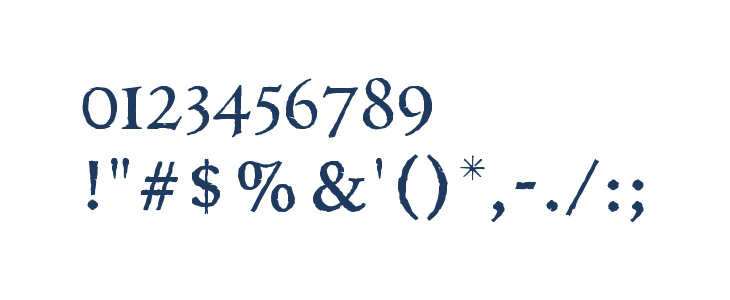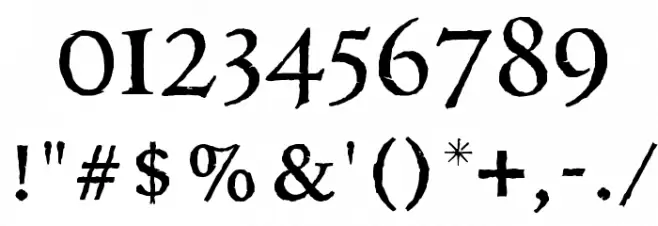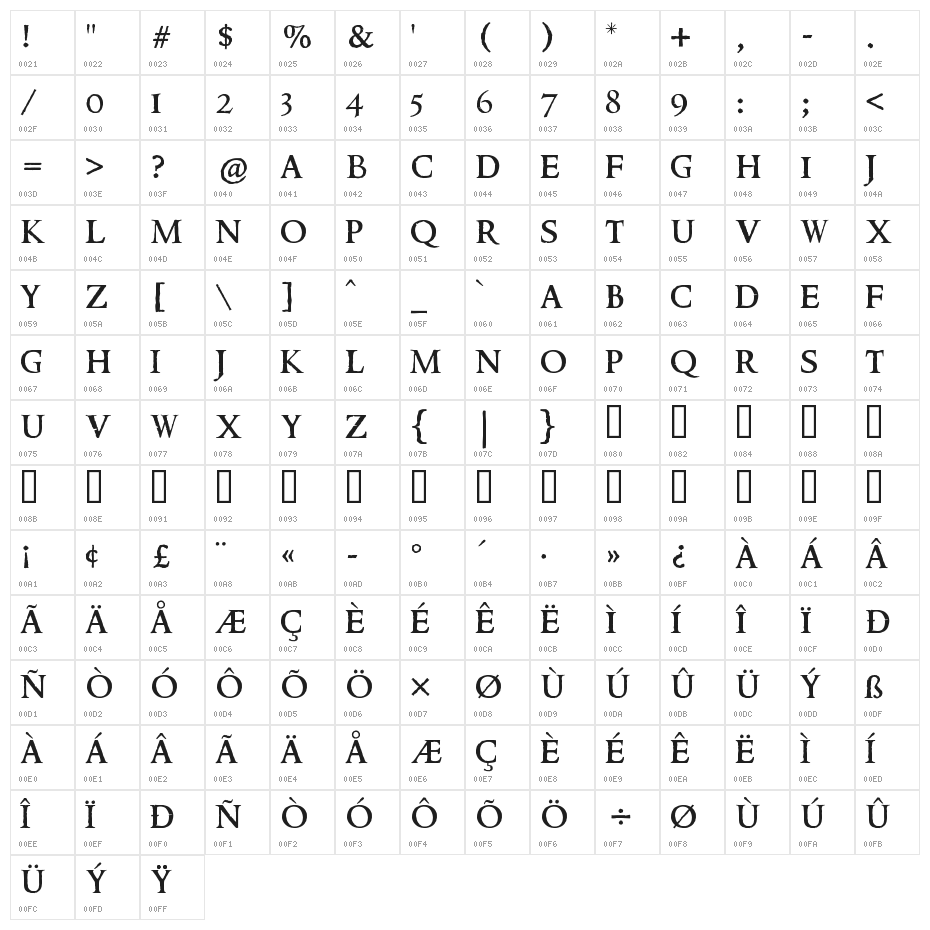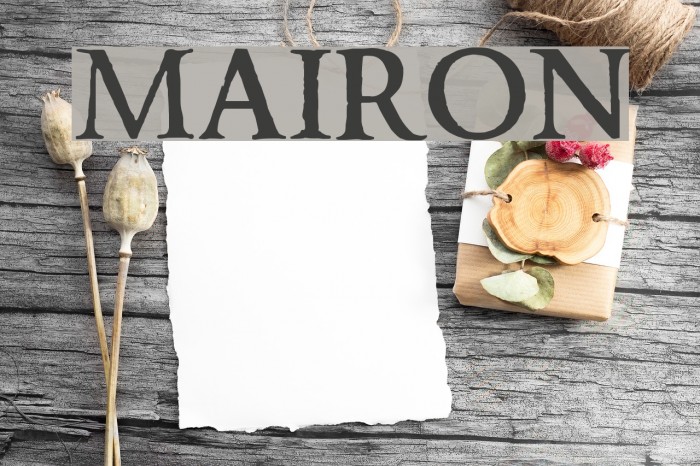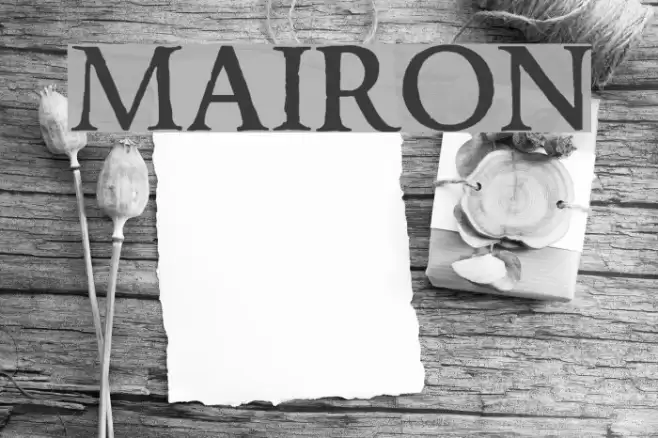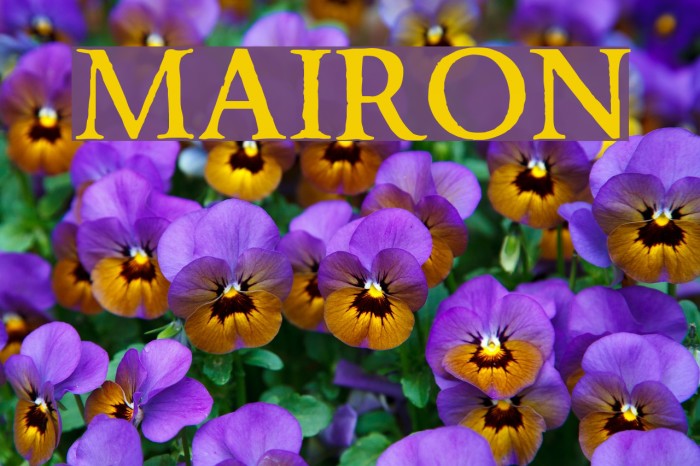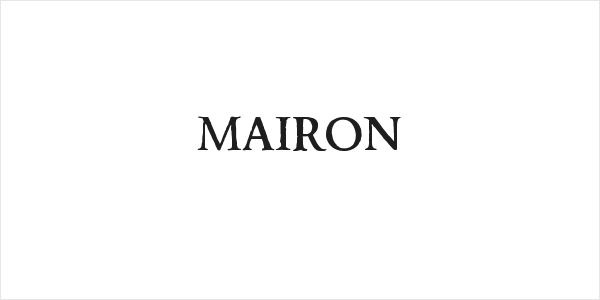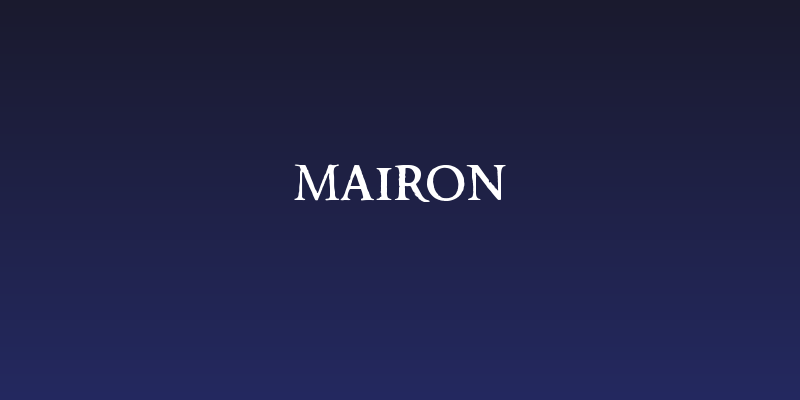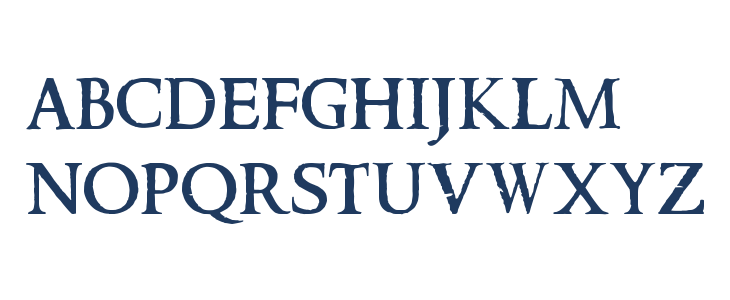
Mairon Font
Mairon Description
This font exhibits a classic and elegant serif style, characterized by its sharp, pointed serifs and high contrast between thick and thin strokes. The uppercase letters are bold and commanding, while the lowercase letters maintain a consistent flow with slightly rounded edges. The numerals are distinct and clear, with a traditional appearance that complements the overall style. The special characters are well-integrated, maintaining the font's cohesive aesthetic. This typeface exudes a sense of sophistication and timelessness, making it suitable for formal and traditional applications.
| Use Case | Headlines, Logos, Formal Documents |
| Proposed Projects | Ideal for book covers, formal invitations, certificates, and branding materials that require a touch of elegance. |